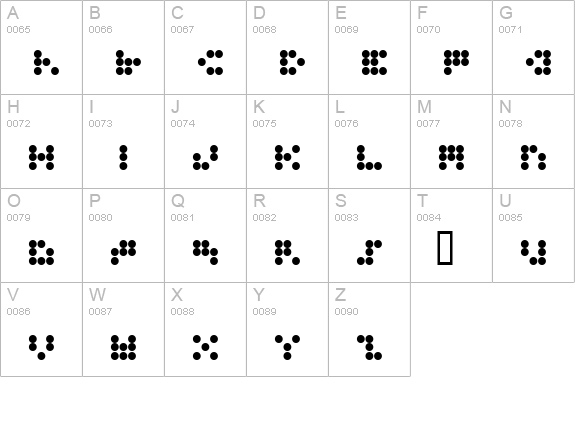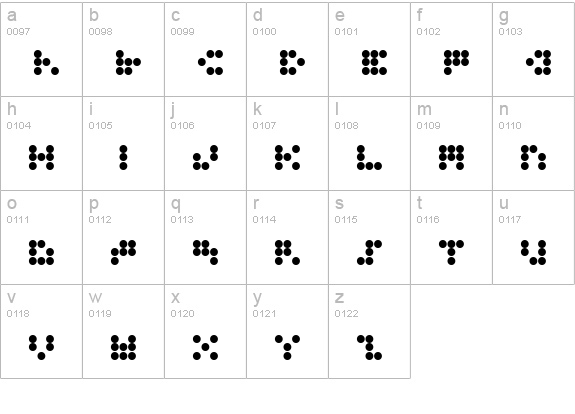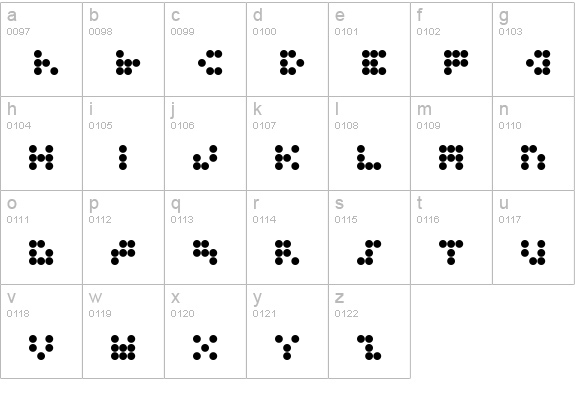
CIRCULAR9 E Font Details
Introducing CIRCULAR9 E font, a modern and sleek typeface designed to make your designs stand out. This contemporary font features clean lines and a rounded aesthetic that exudes sophistication and elegance. Perfect for a wide range of design projects, from branding and packaging to web design and more, CIRCULAR9 E font is versatile and eye-catching. The best part? This stunning font is available for free download at FontsMarket.com. Simply head over to the website and get your hands on this stylish typeface to elevate your creative projects. Don't miss out on the opportunity to enhance your designs with the captivating CIRCULAR9 E font. Download it now and let your creativity shine!